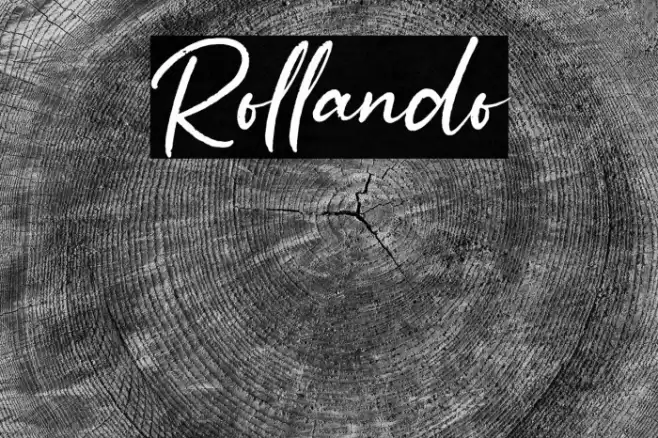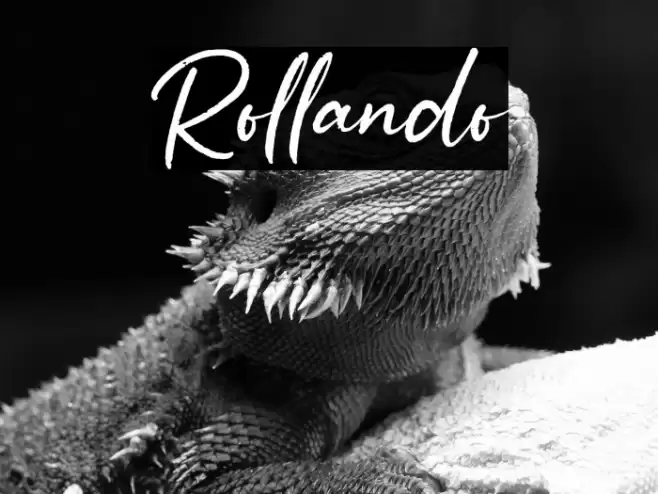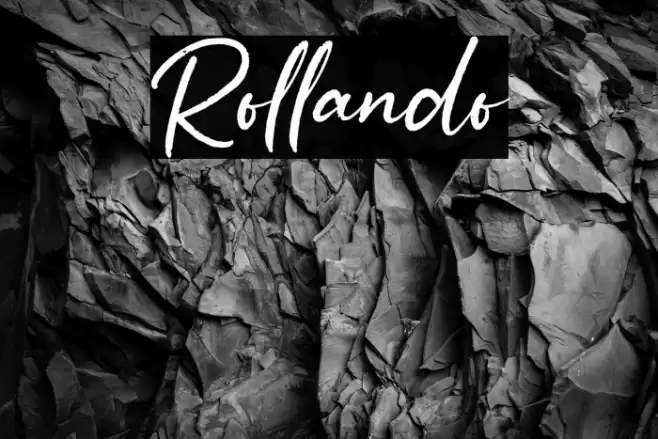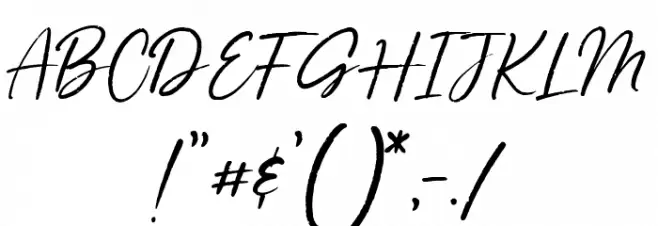
Rollando Font
Rollando Description
This font exudes a modern and elegant script style, characterized by its fluid and graceful strokes. The uppercase letters are slightly larger and more pronounced, while the lowercase letters maintain a consistent flow, adding a touch of sophistication. The characters are well-balanced, with a slight slant that enhances the handwritten feel. The font includes a full set of uppercase and lowercase letters, numerals, and a variety of special characters, making it versatile for various design needs. Its smooth curves and stylish appearance make it suitable for projects that require a personal and artistic touch.
A modern, elegant script font with fluid, graceful strokes and a handwritten feel from Uncategorized fonts.
- Font: Rollando
- Proposed Projects: Ideal for wedding invitations, greeting cards, branding, and social media graphics.
- Use Case: Logos, Invitations, Social Media